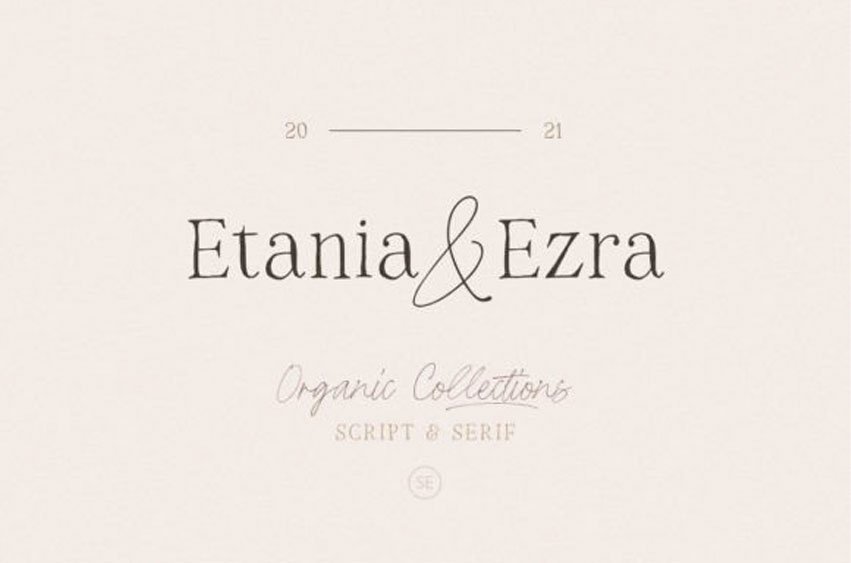
Etania & Ezra Font is a fantastic serif and script duo font that exudes authenticity and charm. It looks minimalistic yet applicable to everything!
Try it on wedding invitations, branding, logotypes, or even quotes. If you are looking for fonts with handmade and organic vibes, this font will fulfill your needs!